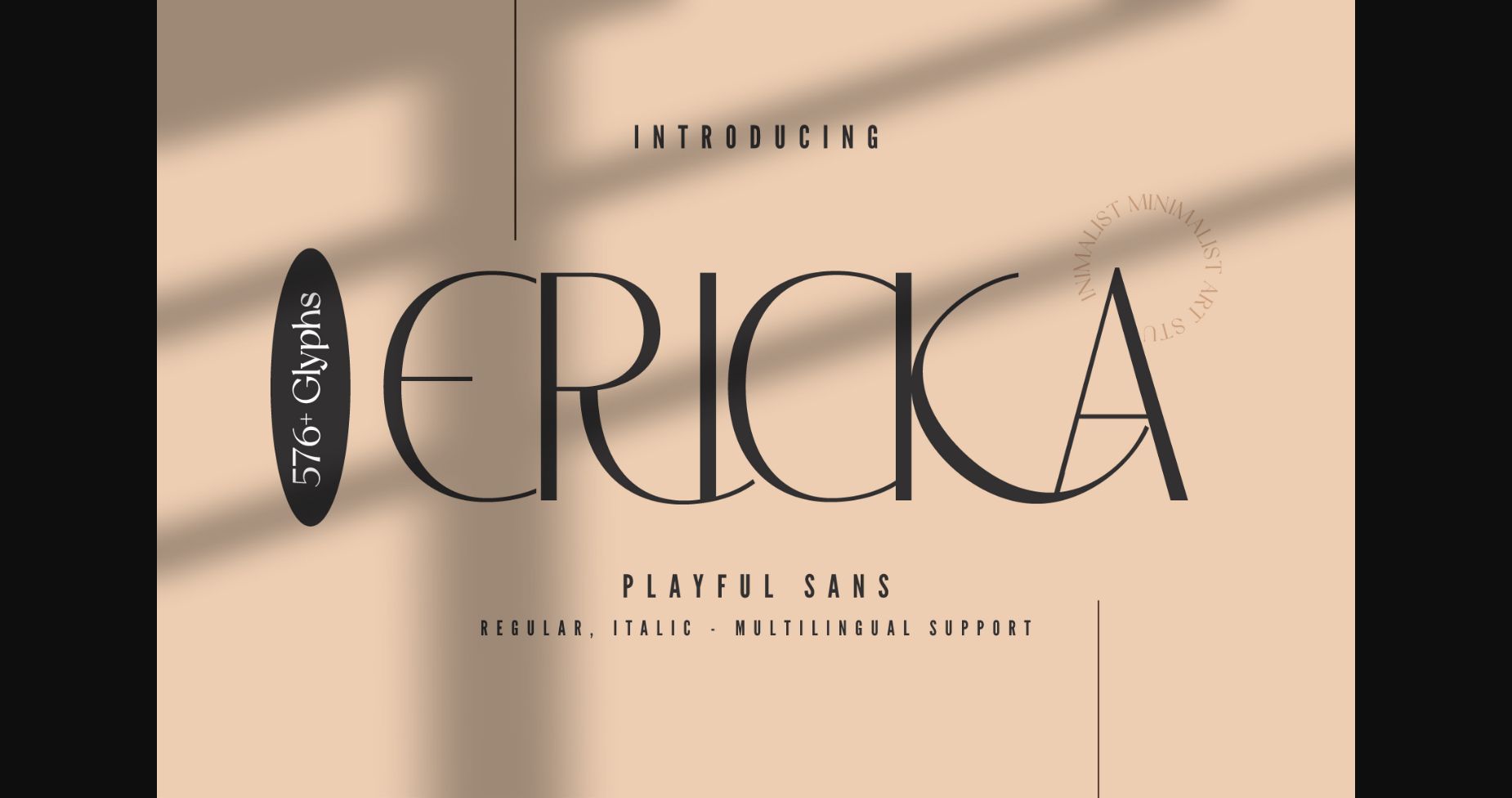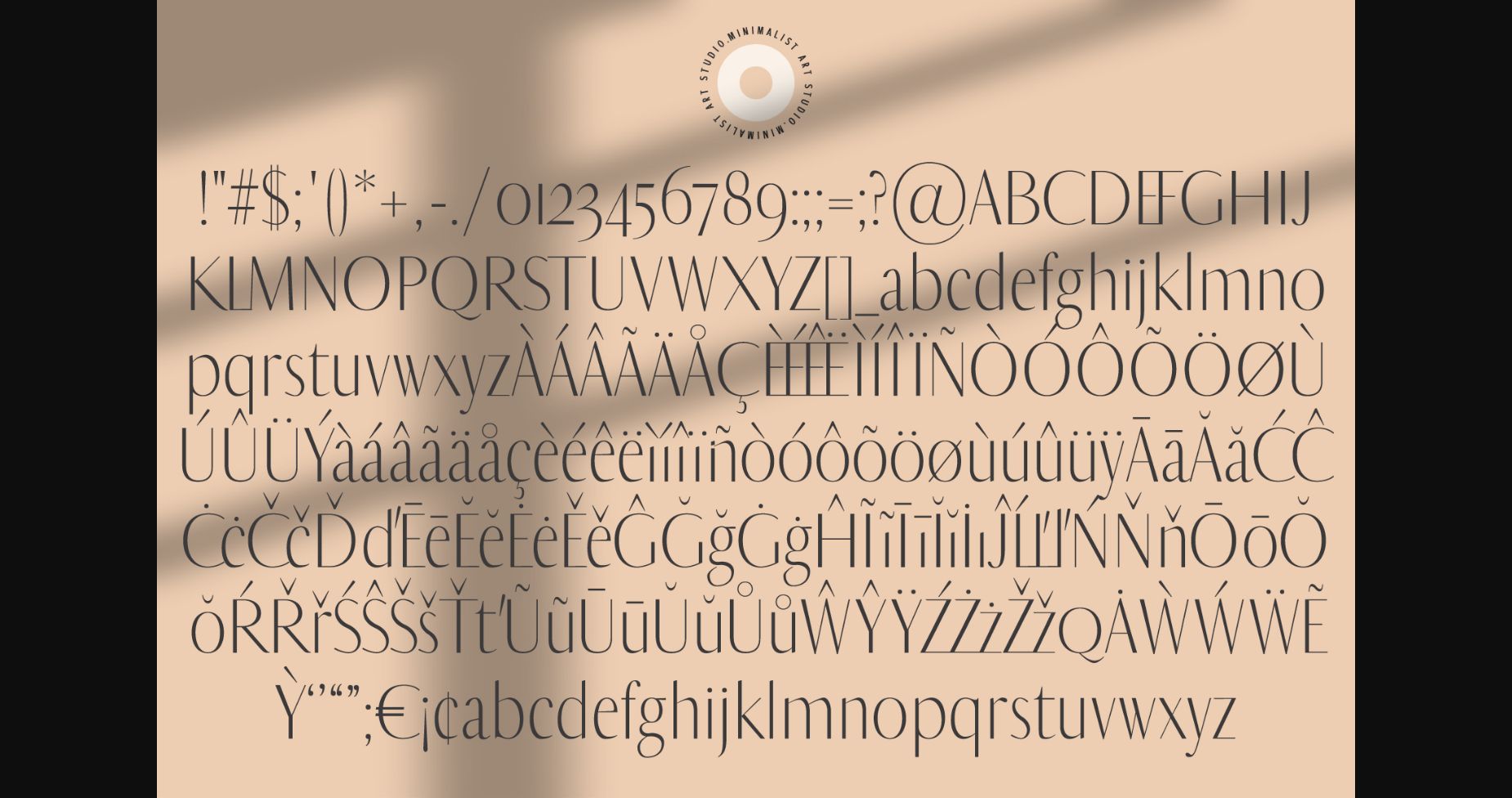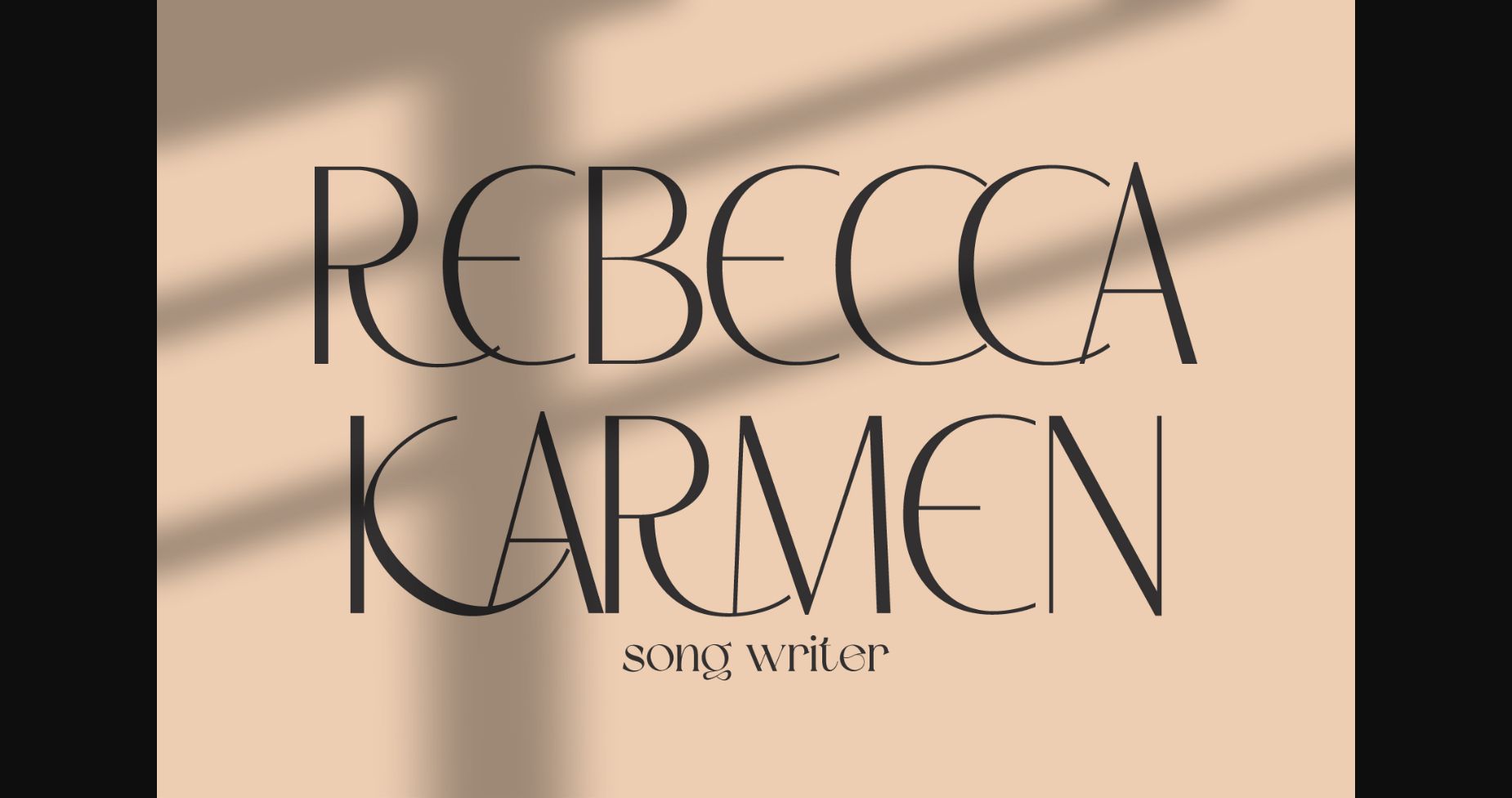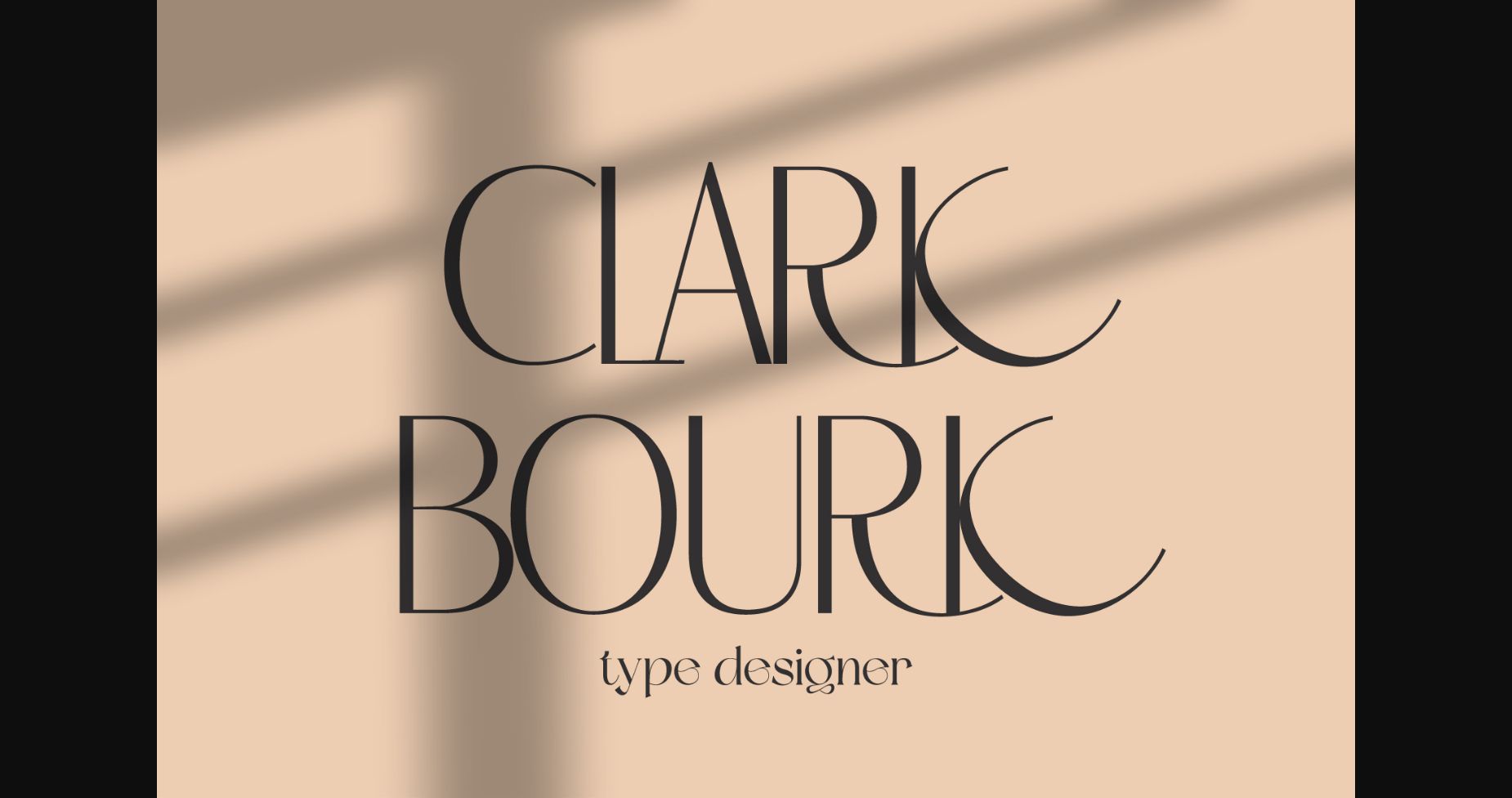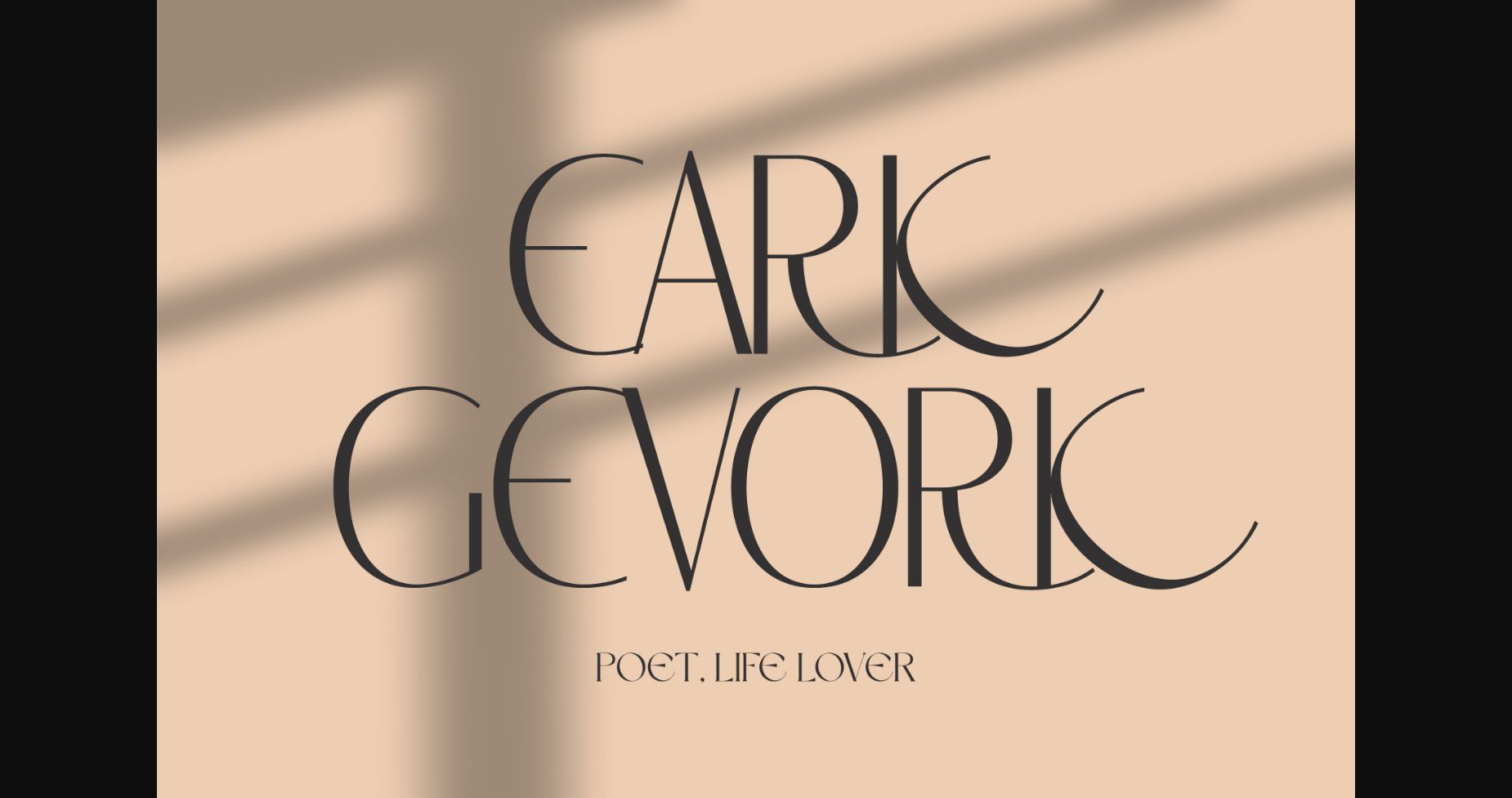
About Ericka Font
Introducing “Ericka” – the epitome of elegance and sophistication in a minimalist sans serif font. Whether you’re designing a logo, website, or brand identity, “Ericka” is the perfect font to elevate your design to the next level. So why settle for ordinary when you can have extraordinary? Try “Ericka” today and discover the beauty of simplicity.